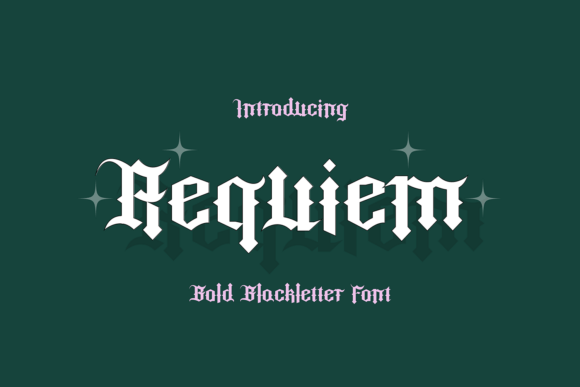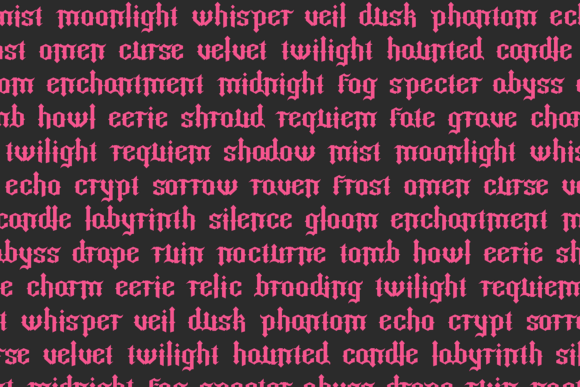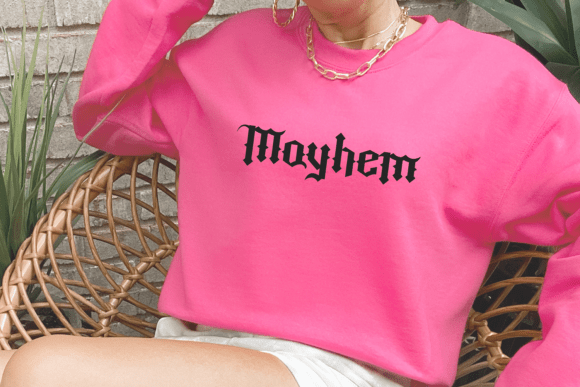
About the Requiem Font
The wait is over! The incredible Requiem Font is now available for your design toolkit. “Requiem” is a geometric bold and stylish gothic-style font. It is perfect for social media or crafty projects. Use if for branding, crafts for decor, invitations, and more! Includes upper and lowercase glyphs, numbers, punctuation, and intl characters.
Requiem’s strong geometric forms make it ideal for headlines, logos, and short, impactful statements in branding materials. It also works well for posters and packaging where bold visual impact is key. However, its bold weight and gothic style make it less suitable for body text or long paragraphs, or user interfaces requiring high readability.
Its assertive personality pairs well with clean sans-serif fonts like Open Sans or Lato for a balanced contrast. For a more sophisticated feel, consider pairing it with a classic serif like Garamond or a slightly more modern serif like Playfair Display. Avoid pairing it with other overly decorative or highly stylized fonts.
Requiem projects a bold, modern, and slightly rebellious personality. It’s perfect for brands seeking to communicate strength, confidence, or a touch of edgy sophistication.
Requiem Font Usage Examples
Requiem Font Example